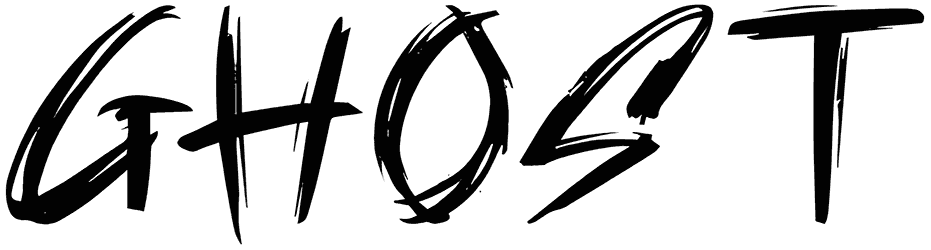
Ghost Font
A realistic brush font, such as the one offered, can add a cool and captivating vibe to your project. This ghost font has the potential to be used for varied themes, like a horror movie scene. Test the Ghost font for your new creative layout and surprise your followers with a unique outcome.